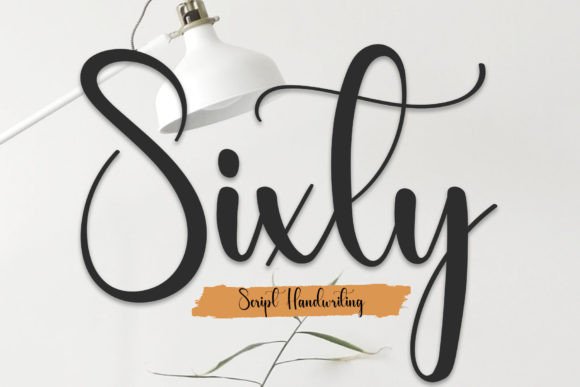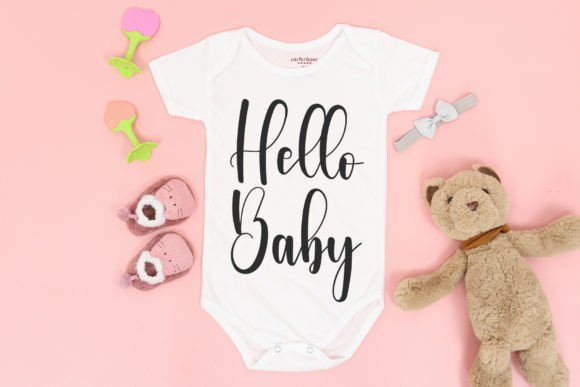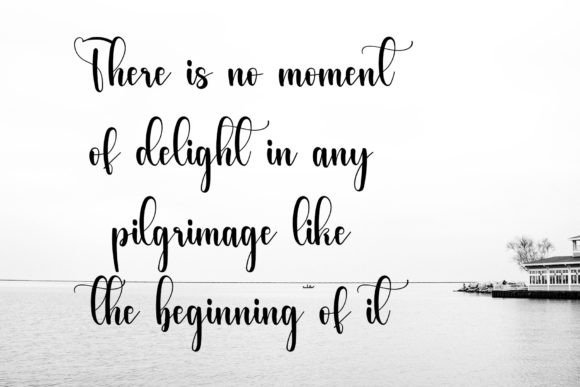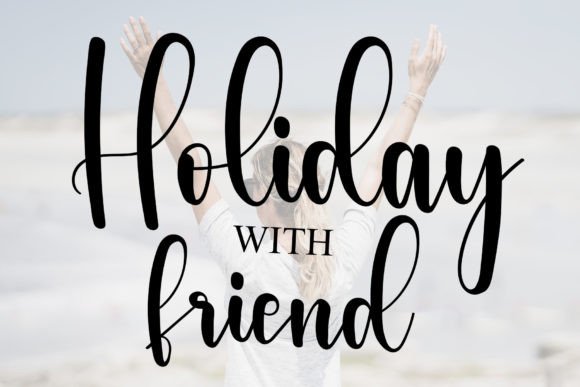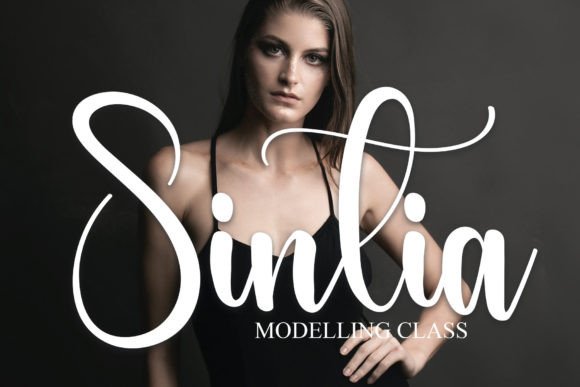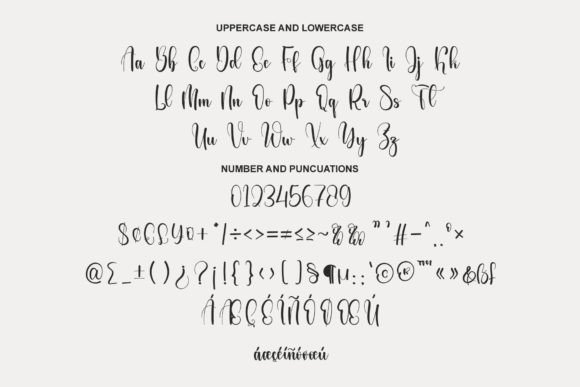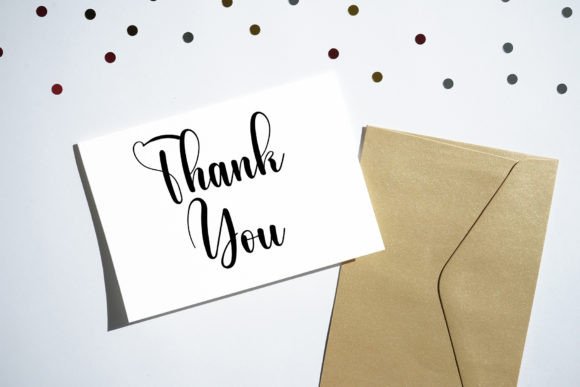
Sixty Font
What Is Sixty Font?
Sixty Font is a sophisticated handwritten script designed to blend timeless calligraphy with a contemporary aesthetic. Each letter features smooth curves and graceful strokes that create a fluid, elegant look. Whether you want your designs to feel classic or modern, Sixty gives you the perfect balance of refinement and style.
Its impeccable form and carefully balanced character shapes make it a go-to choice for projects that demand quality and attention to detail.
Sixty is a versatile font that elevates a wide range of creative applications. For example, it’s an excellent fit for branding and logos. The elegant letterforms bring a polished, upscale feel to your visual identity, helping your brand look professional and unforgettable.
Wedding invitations and event stationery also shine with Sixty’s graceful script. The flowing strokes and classic calligraphic inspiration create a romantic atmosphere that sets the tone for your celebration.
If you design posters, packaging, or promotional materials, Sixty ensures your message stands out with sophistication and clarity. The smooth lines and balanced proportions draw the eye and make your text instantly appealing.
Social media graphics, blog headers, and website banners look polished and cohesive with Sixty. Whether you’re sharing inspirational quotes or announcing special offers, this script adds an elegant touch that elevates your content.
Even personal projects like thank-you cards, custom prints, or journals gain a refined feel when you use Sixty Font.
Why Should You Choose Sixty Font?
One of Sixty’s greatest strengths is its readability. Despite its stylish curves and calligraphic flair, every letter remains clear and legible in any size. From small captions to large headings, your text will always look crisp and professional.
Sixty pairs beautifully with minimalist serif or sans-serif typefaces, giving you endless options to create balanced, modern layouts.
Designers love that Sixty is intuitive to use and versatile enough to adapt to both formal and casual styles.
Sixty Font brings elegance, warmth, and a contemporary edge to any project. Its refined letterforms help your work feel thoughtful and professional, creating a memorable experience for your audience.
Even the simplest compositions gain sophistication and depth when you use Sixty. Whether you’re working on luxury branding or everyday designs, this script ensures your text always looks its best.
Choosing a premium handwritten font like Sixty shows your commitment to detail and quality, helping you build trust with clients and customers.
Sixty Font is more than just a beautiful script—it’s a versatile design asset that helps you communicate ideas with elegance and style. From branding and weddings to social media and packaging, this font adapts effortlessly and leaves a lasting impression.